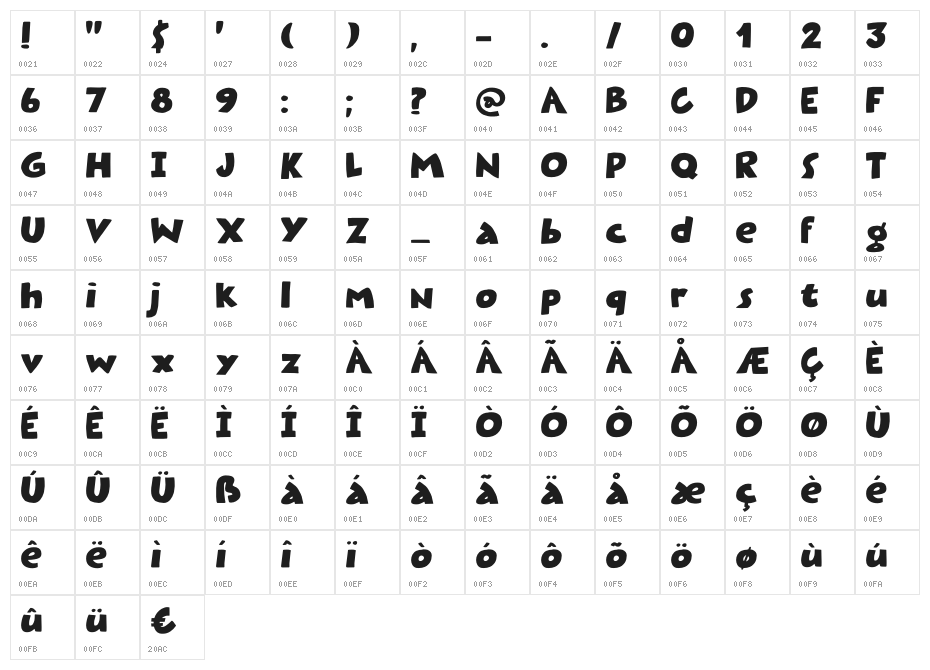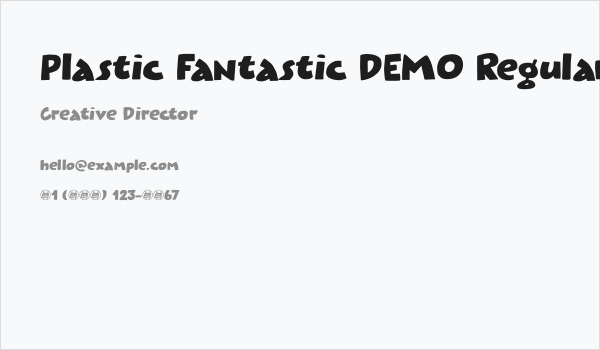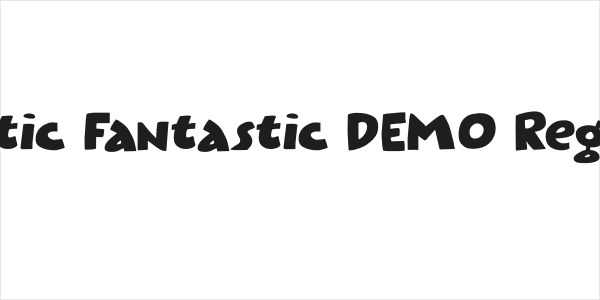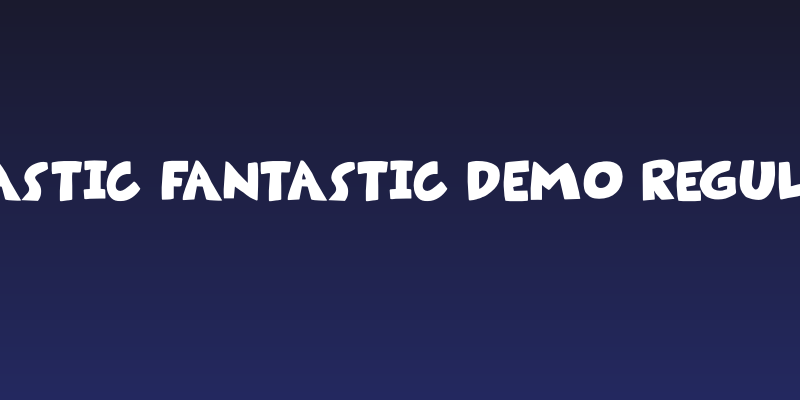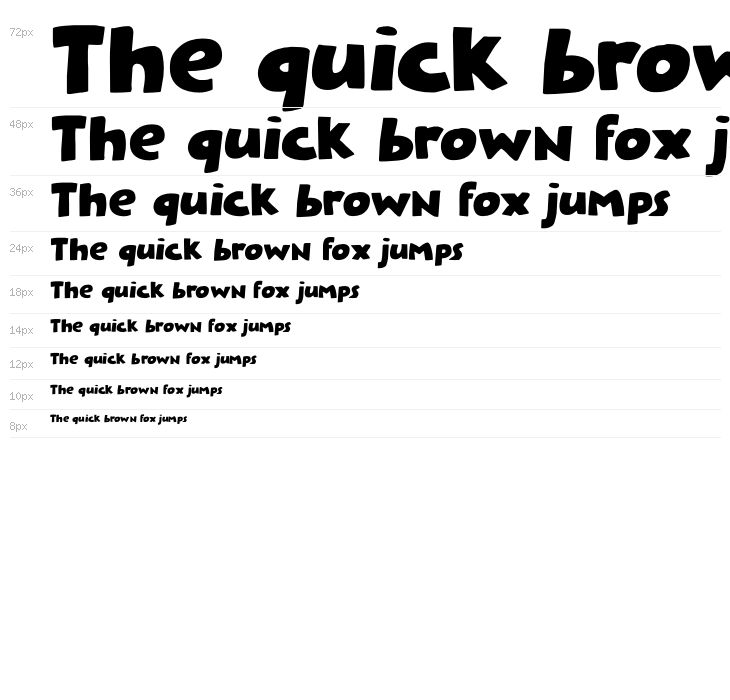
Plastic Fantastic DEMO Regular Font
Plastic Fantastic DEMO Regular Description
This font exudes a playful and whimsical vibe with its bold, irregular shapes and slightly uneven lines. The characters are thick and rounded, giving a sense of fun and creativity. The uppercase and lowercase letters maintain a consistent style, with exaggerated curves and a hand-drawn feel. The numbers and special characters follow the same playful design, making them stand out with their unique and quirky appearance. This font is perfect for projects that require a touch of humor and lightheartedness.
| Proposed Projects | Ideal for children's book covers, playful branding, party invitations, and creative posters. |